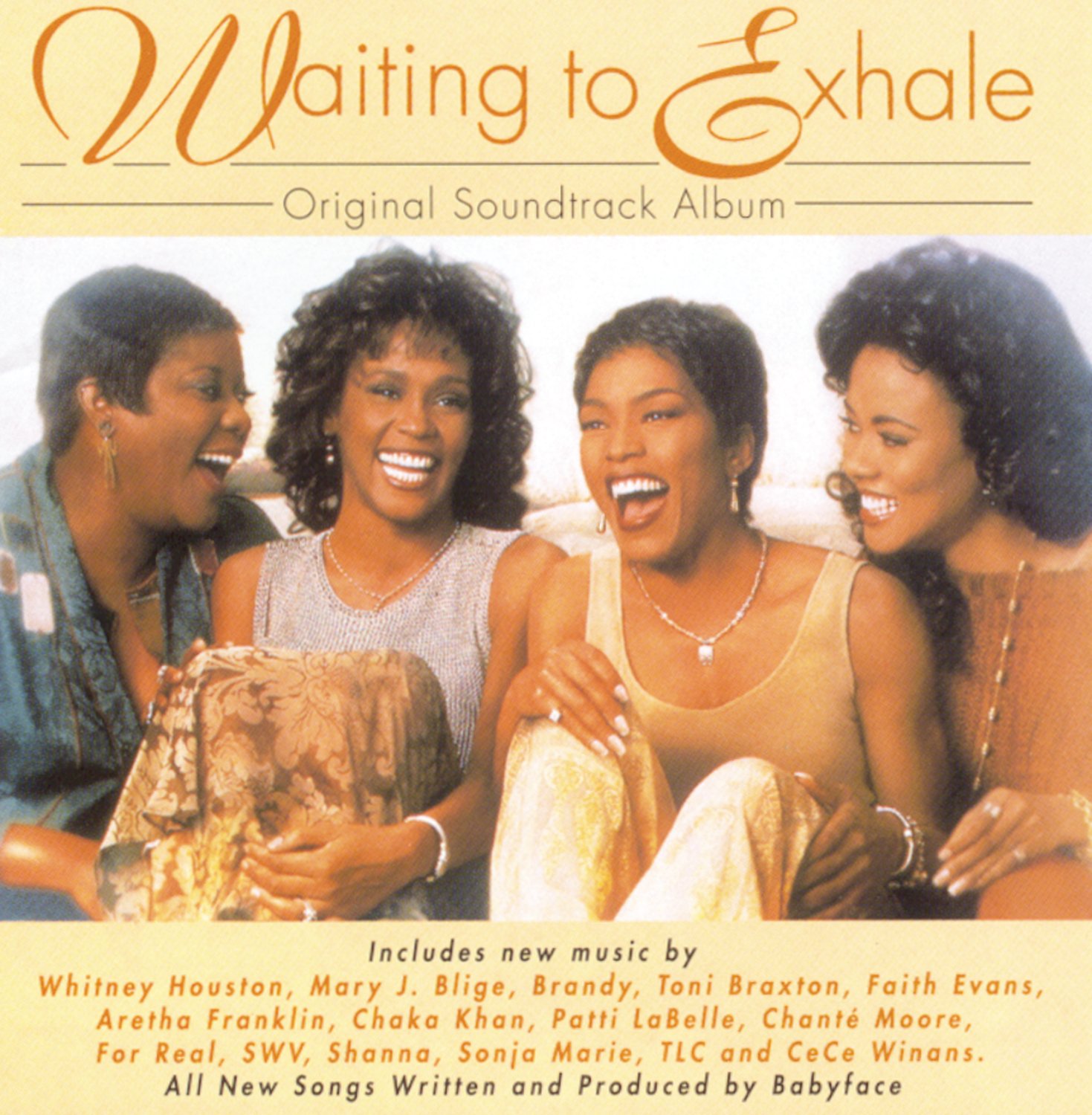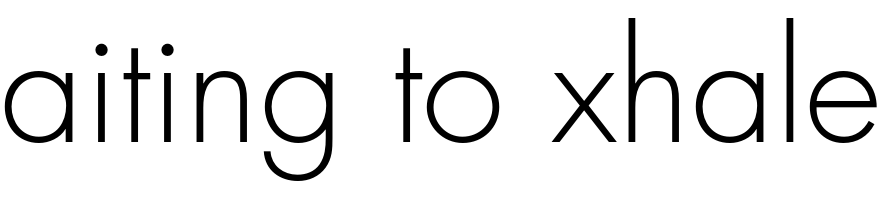
Waiting to Exhale Font
Fonts in UseWaiting to Exhale: Original Soundtrack Album is the soundtrack album to the 1995 film of the same name, starring Whitney Houston and Angela Bassett. The album, produced by Babyface, features a variety of R&B and soul artists, including Whitney Houston, Toni Braxton, and Mary J. Blige
Berthold's Boulevard was used for the capital letters "W" and "E" in the script caps of the title, while the remaining text was likely set in Futura Light. The smaller lines at the bottom of the title were possibly set in Futura Medium Oblique.